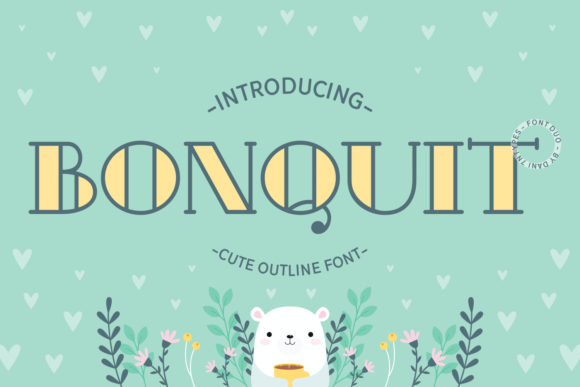
The Designer’s Delight: Bonquit Font
I’ll never forget the time I was working on a project for a client who wanted a bold, eye-catching font to make their brand stand out. I spent hours scouring the internet for the perfect font, but nothing seemed quite right. That was until I stumbled upon Bonquit Font. This cool outlined display font has been a game-changer for my design work, and I’m excited to share its awesomeness with you! 😊
- ✨ Unique outlined style: Bonquit Font’s outlined design gives it a distinctive look that’s perfect for making a statement.
- ✅ High versatility: Whether you’re working on a logo, poster, or social media graphic, Bonquit Font adapts seamlessly to different contexts.
- 💡 Instant visual impact: The font’s bold and modern design grabs attention and adds a touch of sophistication to any creation.
While Bonquit Font is an excellent addition to any font library, there are a few minor considerations to keep in mind:
- 🤔 Legibility at small sizes: As with many outlined fonts, Bonquit may lose legibility when used at very small sizes. It’s best suited for larger display text.
- ⚠️ Overuse can be overwhelming: While Bonquit Font is stunning, using it excessively can be overwhelming. Balance it with other fonts for a harmonious design.
The Story Behind Bonquit Font
Bonquit Font was designed with the goal of creating a versatile and impactful display font. Inspired by modern architectural lines and digital interfaces, the designer aimed to craft a font that could easily elevate any project with its bold, outlined style. The result is a font that’s both contemporary and highly functional.
Q: What type of projects is Bonquit Font best suited for?
A: Bonquit Font excels in projects that require a bold, eye-catching text style, such as posters, logos, social media graphics, and presentations.
Q: Does Bonquit Font support OpenType features?
A: Yes, Bonquit Font comes with OpenType features, including stylistic alternates and glyphs, which can be accessed in compatible software like Adobe Photoshop and Illustrator.
Q: Is Bonquit Font easy to read at small sizes?
A: Due to its outlined design, Bonquit Font may not be ideal for small text sizes. It’s best used for larger display text where its unique style can shine.